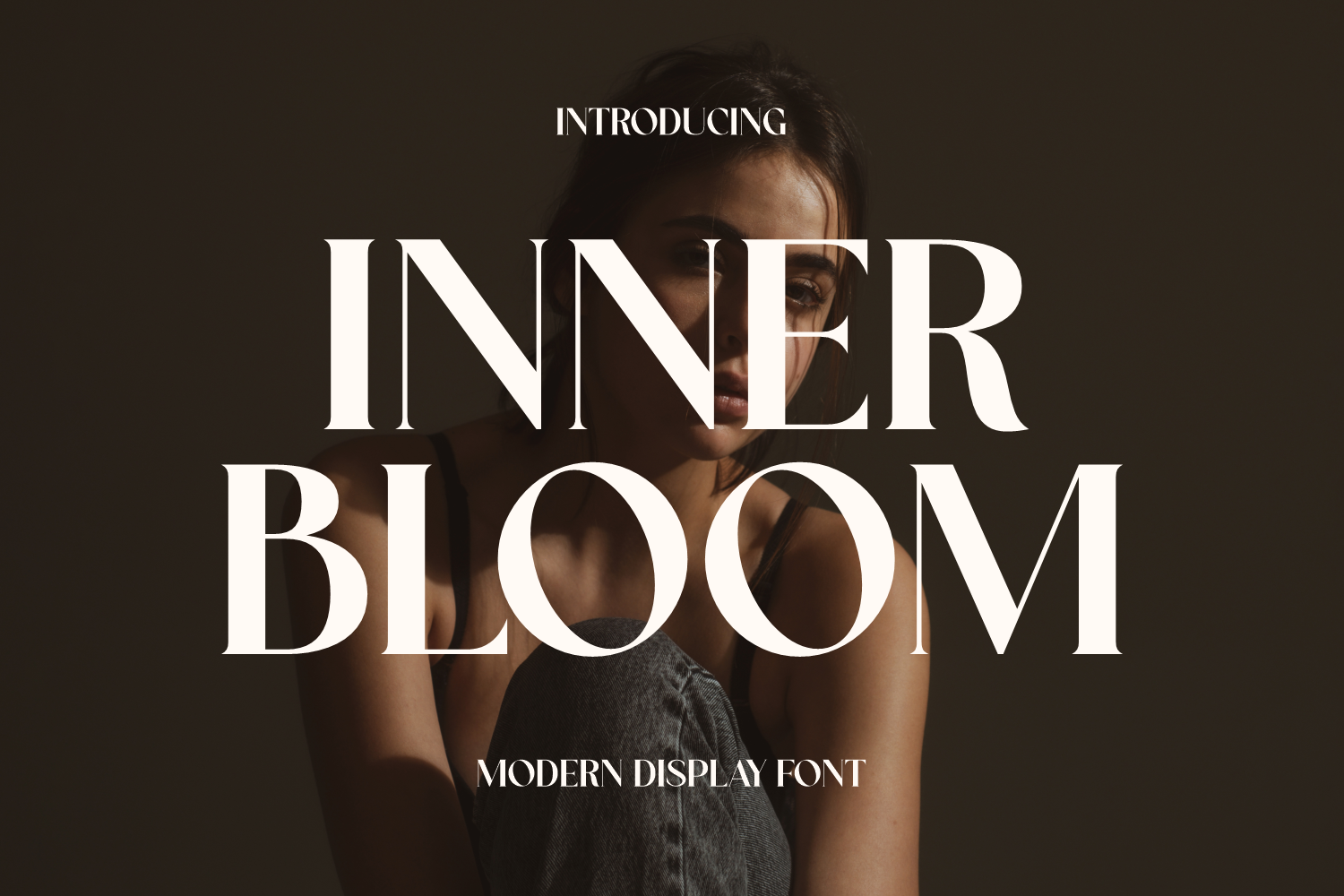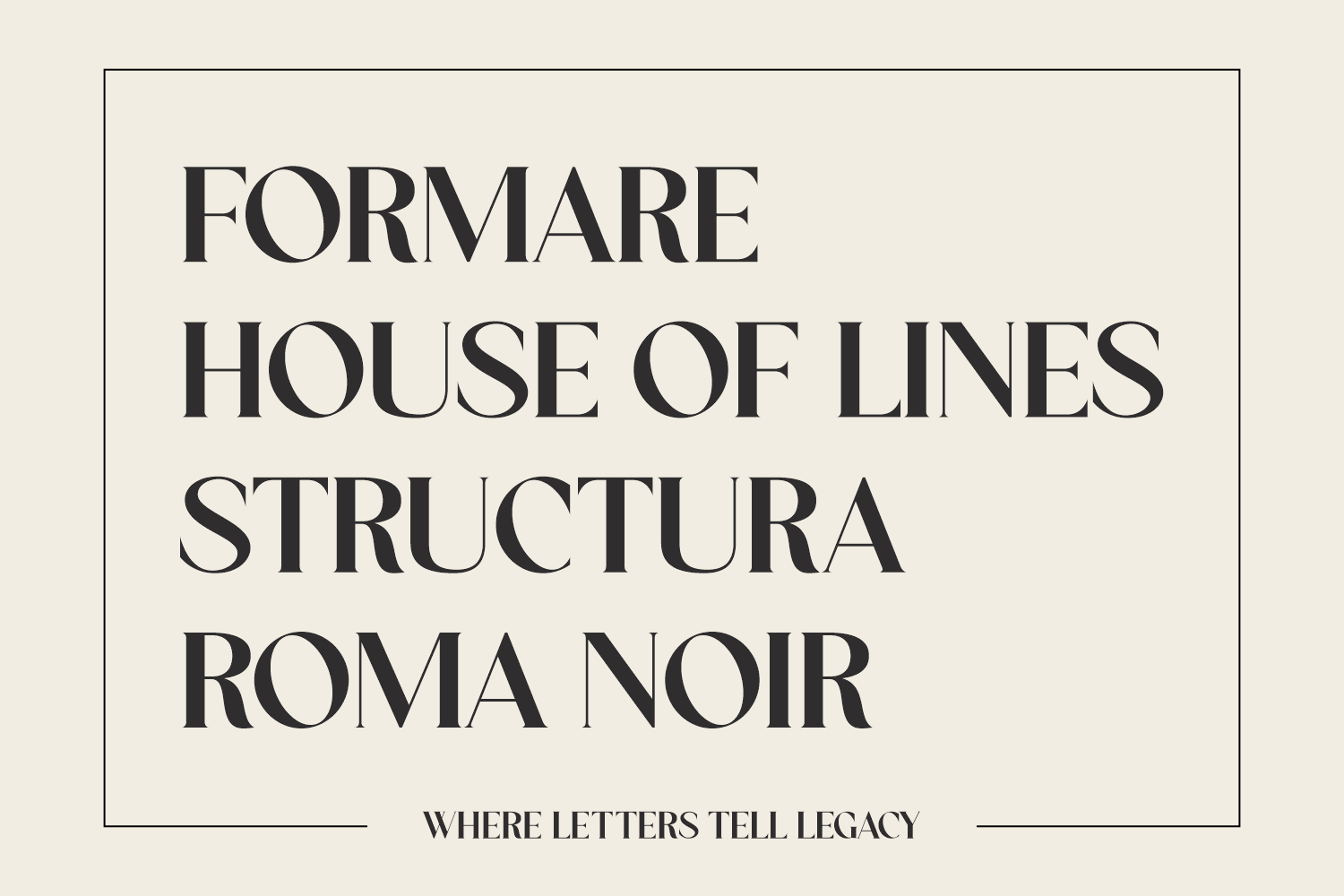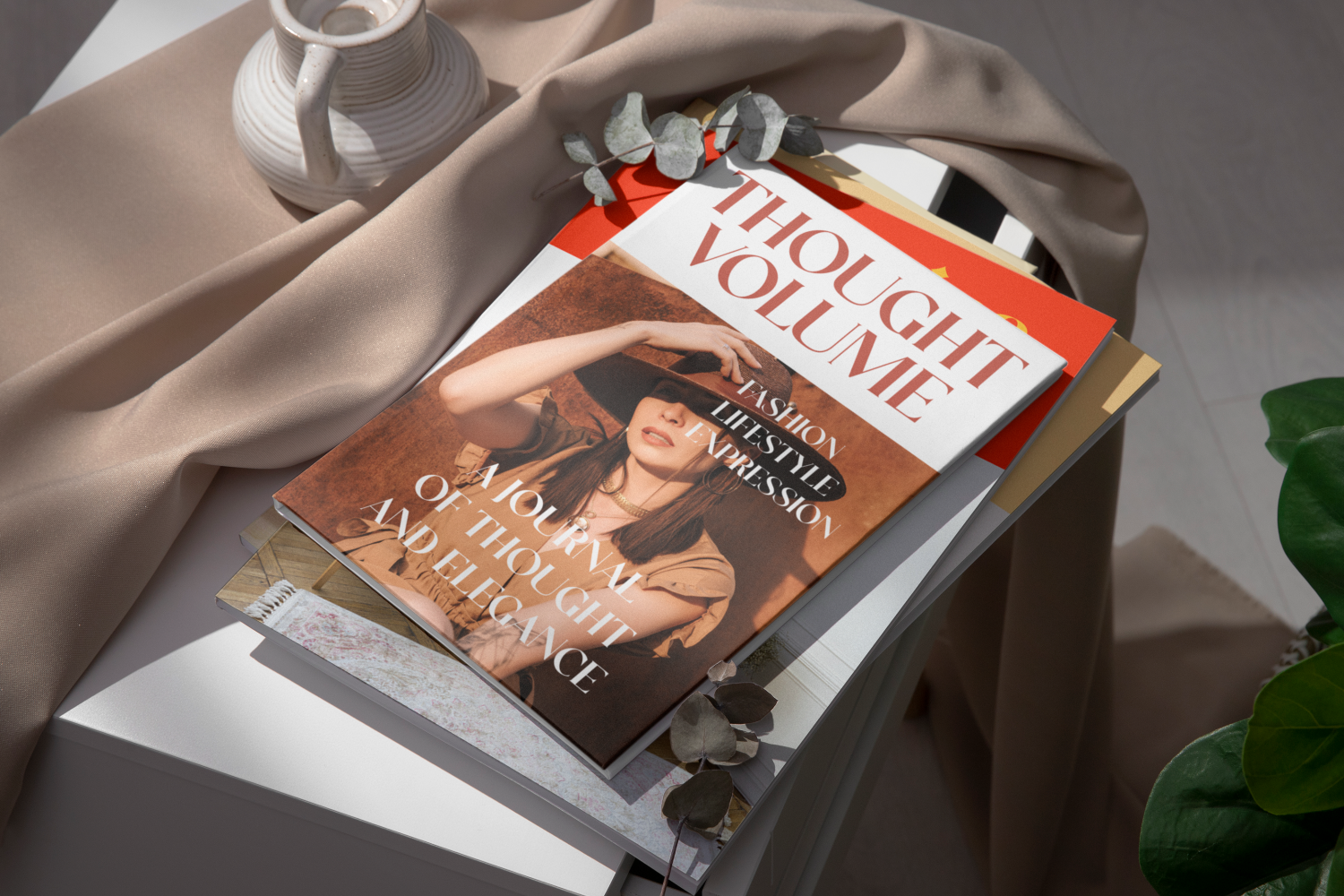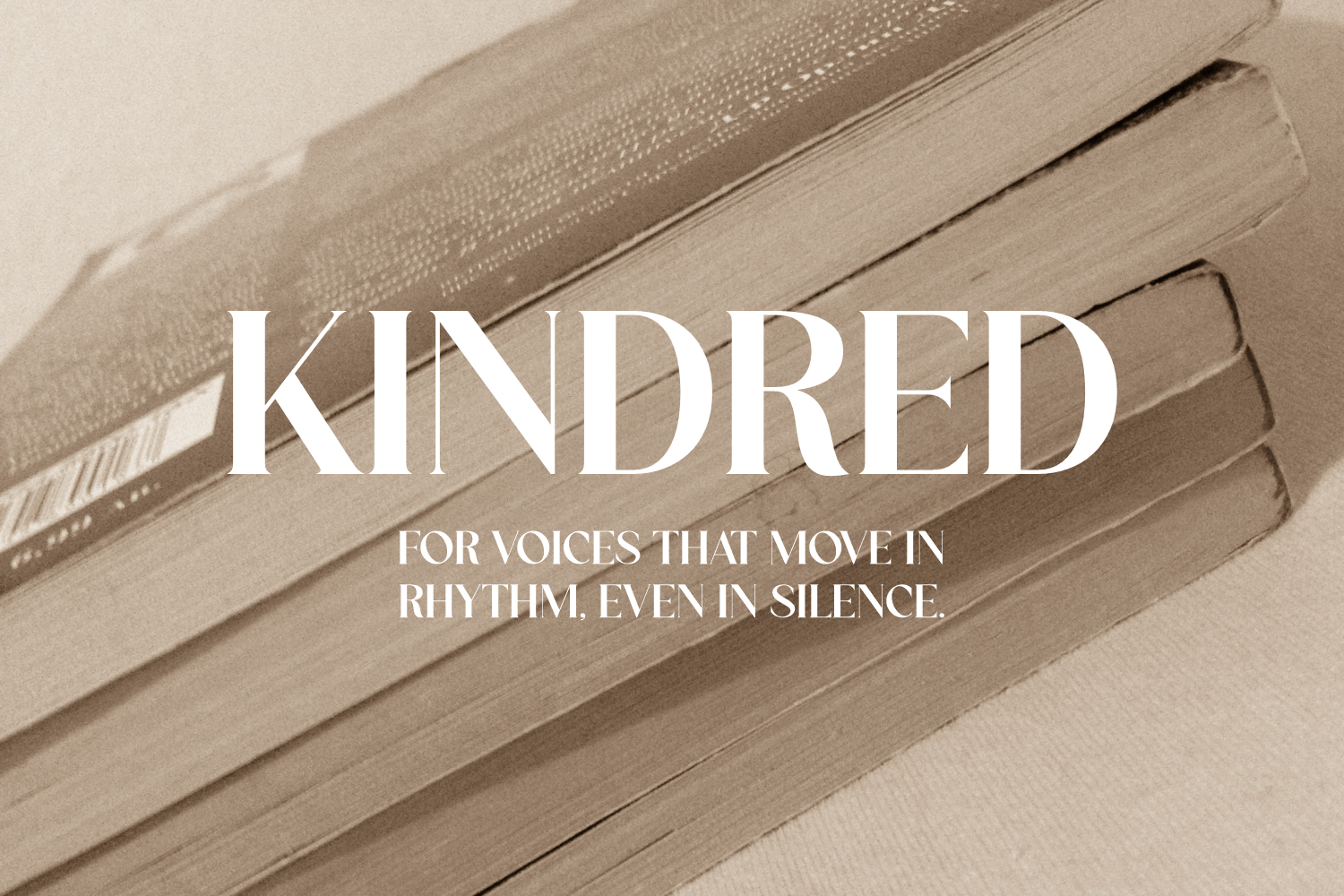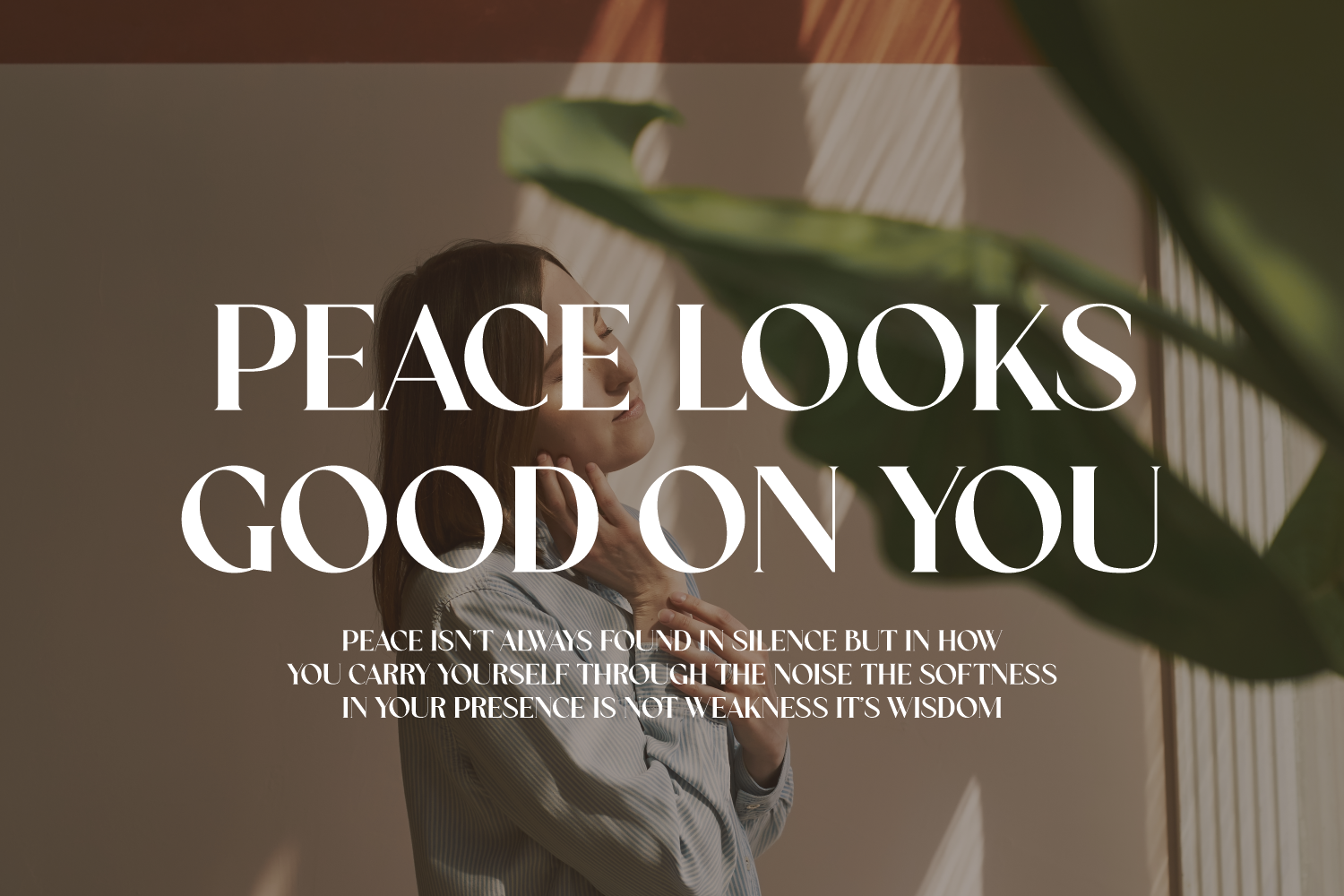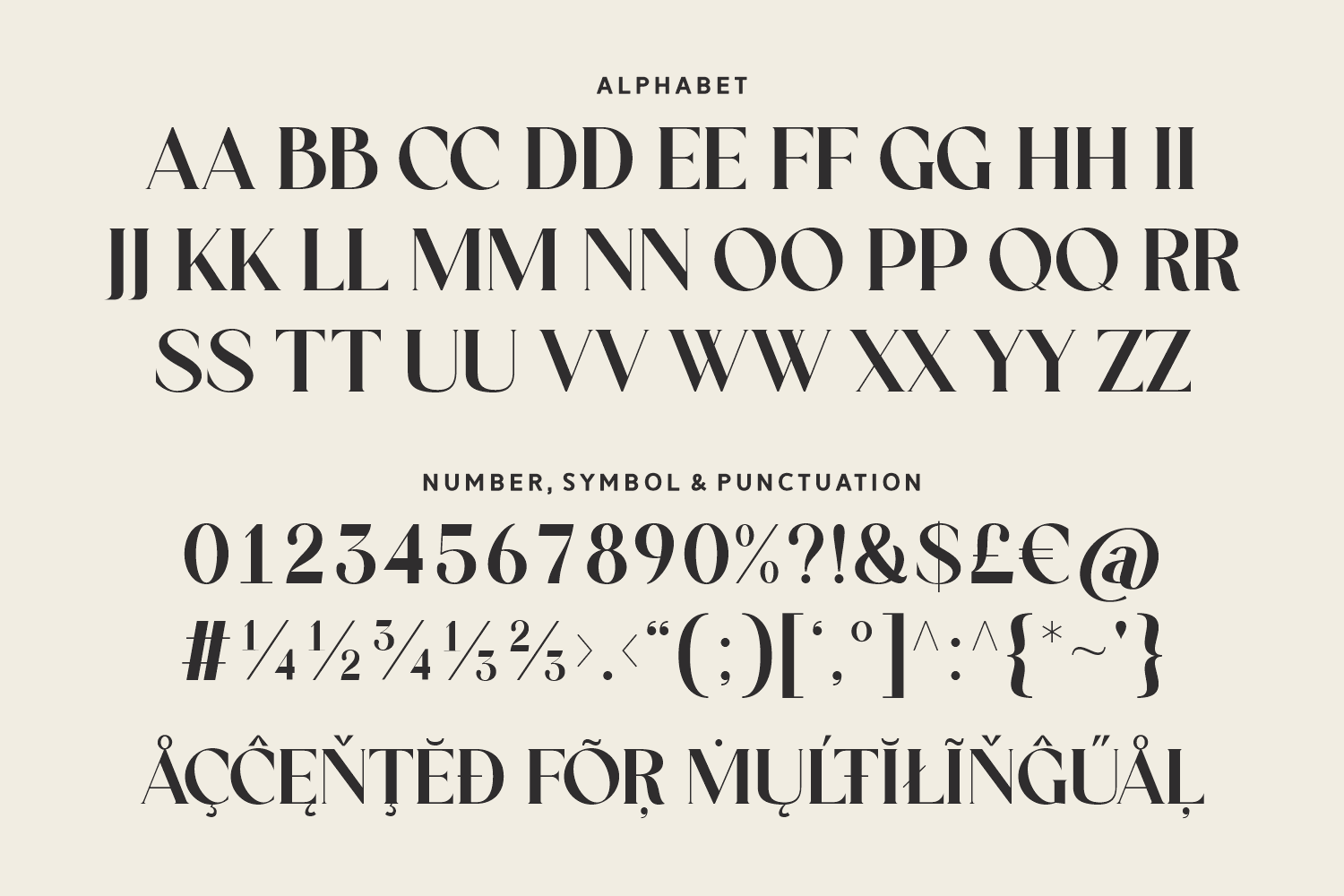
Inner Bloom is a high-contrast modern serif font that radiates poise and confidence. It seamlessly blends classic grace with a contemporary edge, making your text not just seen—but felt. Complete with multilingual support and refined punctuation, Inner Bloom is designed to make a powerful statement wherever it appears.